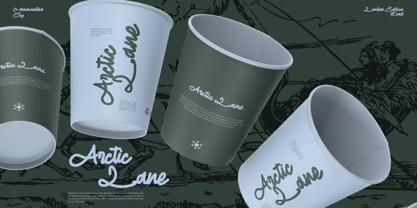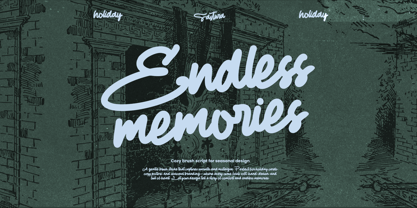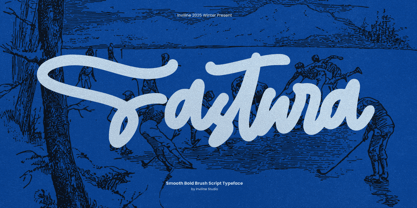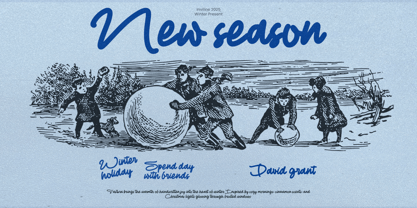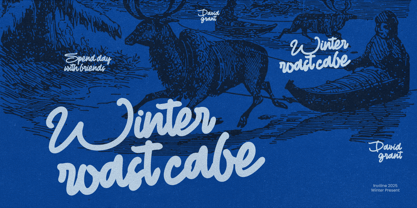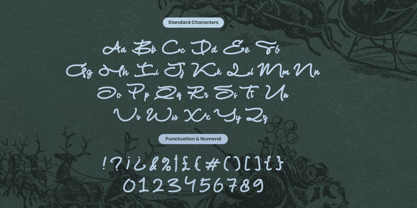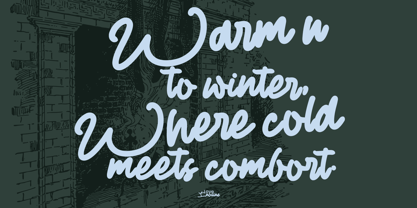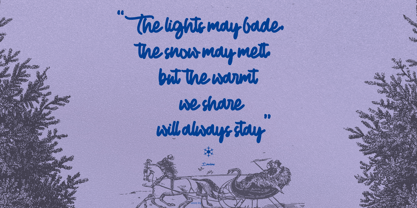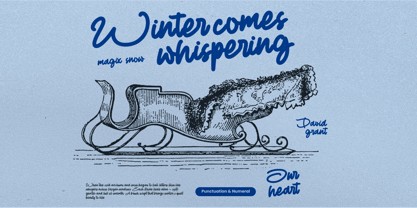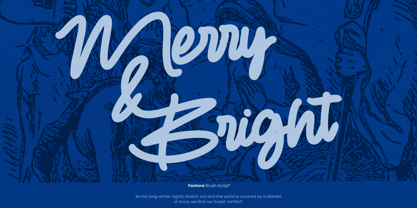
Fastura
by Inviline
The Fastura Font Family was designed by Virgiawan Listanto and published by Inviline. Fastura contains 1 styles. More about this family
Fastura is a smooth bold brush script typeface that captures the warmth of handwritten charm with a playful winter vibe. With its flowing curves and confident strokes, Fastura is perfect for festive packaging, holiday greeting cards, cozy branding, nostalgic posters, and heartfelt quotes. You’ll get a full character set including uppercase & lowercase letters, punctuation, numbers, and multilingual support—all designed to bring a handwritten touch to your seasonal and year-round projects with ease.
Designers: Virgiawan Listanto
Foundry: Inviline